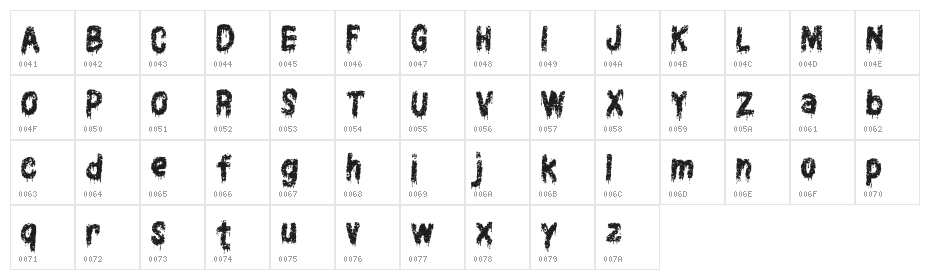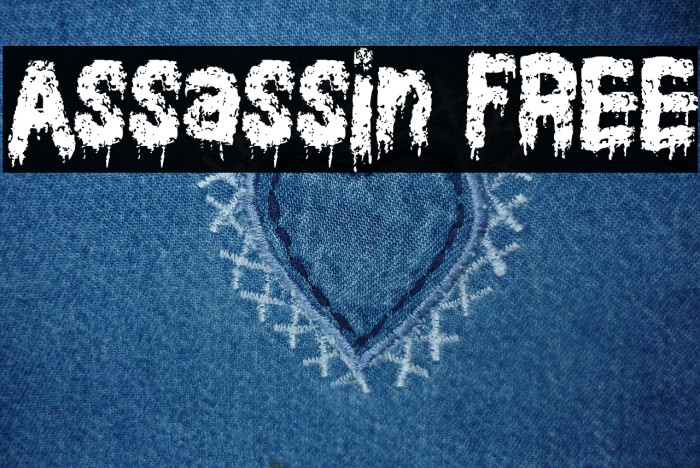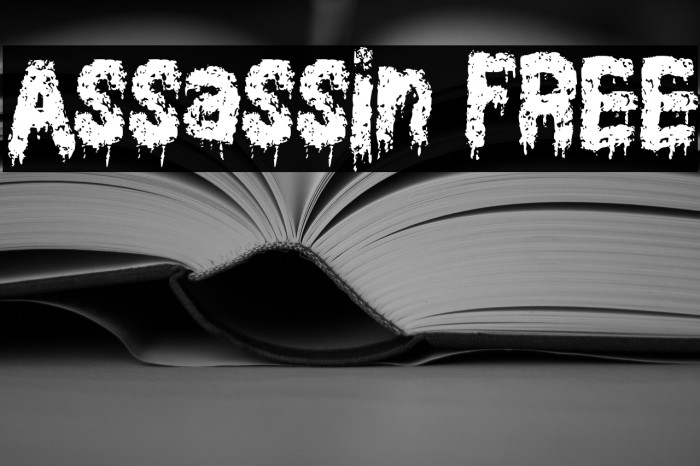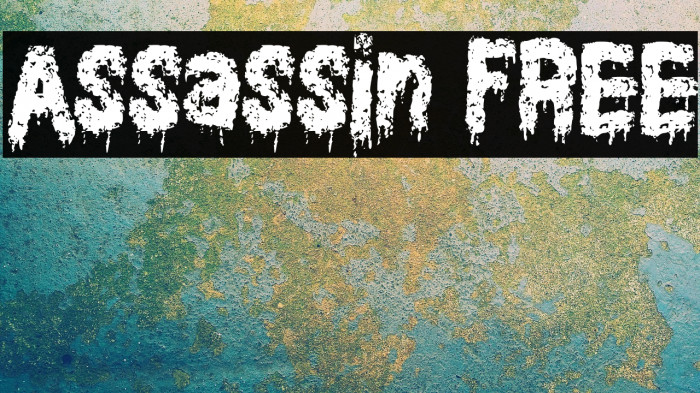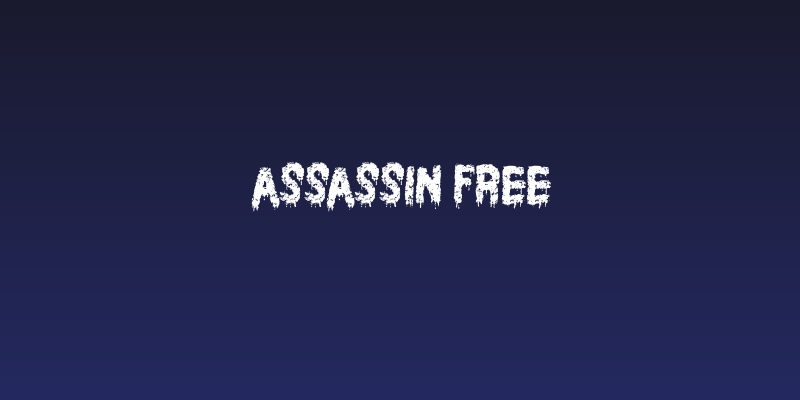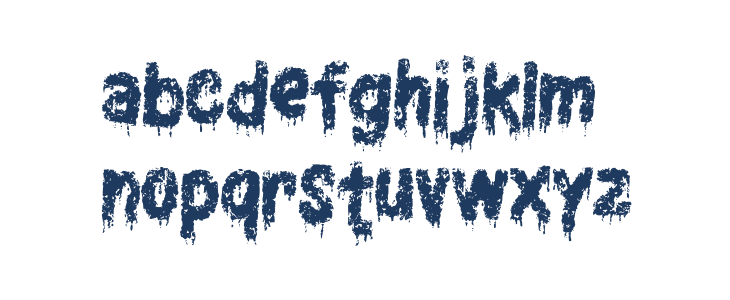
Assassin FREE Font
Assassin FREE Description
This font features a bold and distressed style, reminiscent of dripping paint or ink. The characters are heavily textured, giving them a rugged and edgy appearance. Each letter appears as if it has been splattered with ink, creating a chaotic yet artistic look. The uppercase and lowercase letters maintain a consistent style, with jagged edges and irregular shapes that enhance the font's dramatic effect. This font is ideal for projects that require a grunge or horror theme, as its unique design captures attention and conveys a sense of urgency and intensity.
| Proposed Projects | Ideal for horror movie posters, Halloween event flyers, edgy album covers, and rebellious fashion branding. |